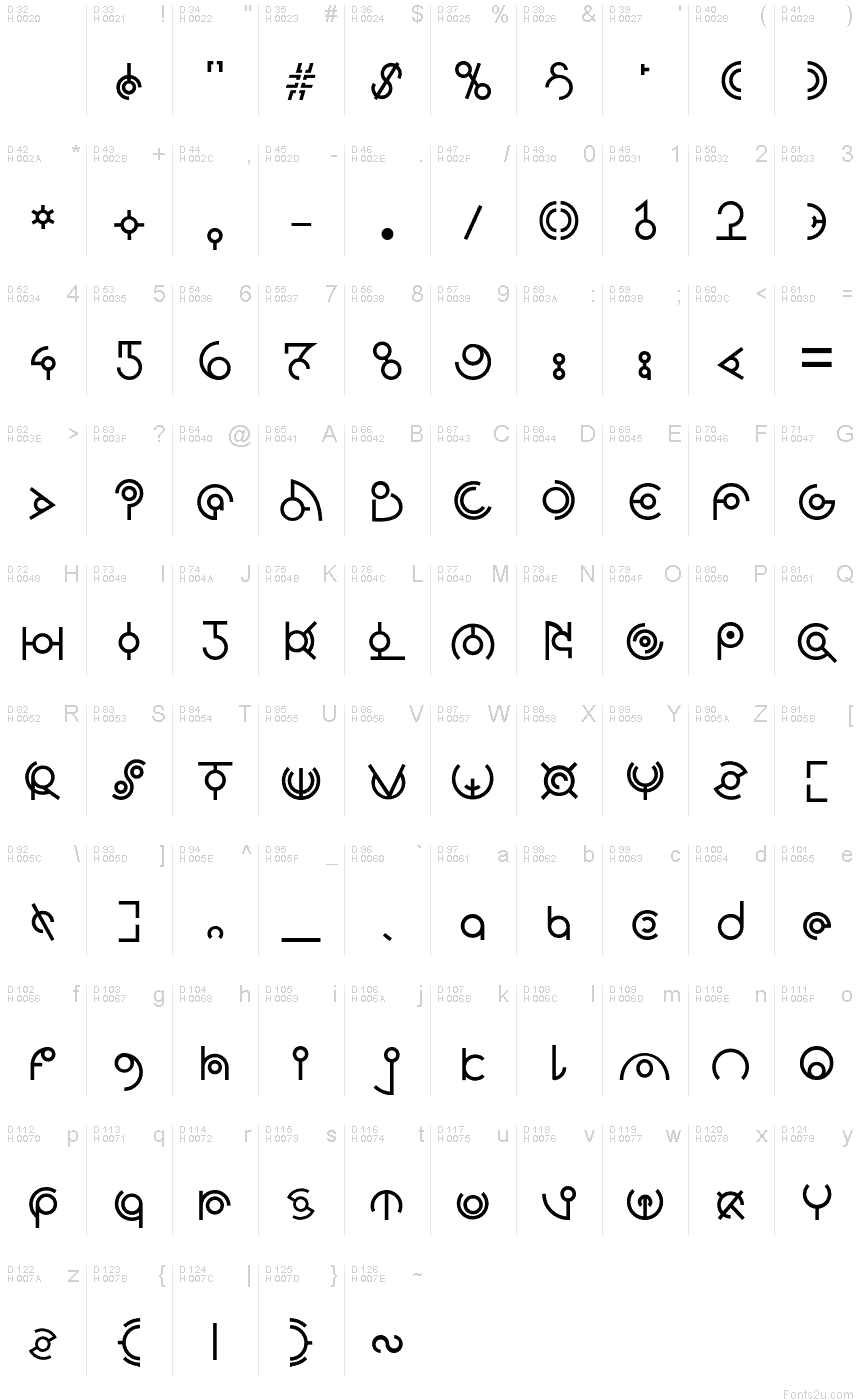
Alien Sans Latin basic
Alien Sans Latin Basic is a free futuristic geometric display font with a clean, signal-like rhythm. The letters lean on wide circles, open arcs, and straight vertical strokes, giving the font a sparse sci-fi tone that feels more like signage from a stylized future than a conventional sans.
It fits poster headlines, music artwork, game title cards, tech branding, and interface-driven editorial graphics where a free font can carry a strange, synthetic mood without getting busy. Because so much of the look comes from cropped rounds and deliberate gaps, it works best in short words, logos, and cover lines where those circular motifs have room to register.